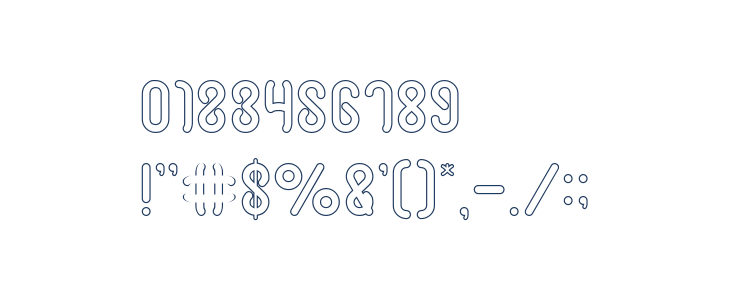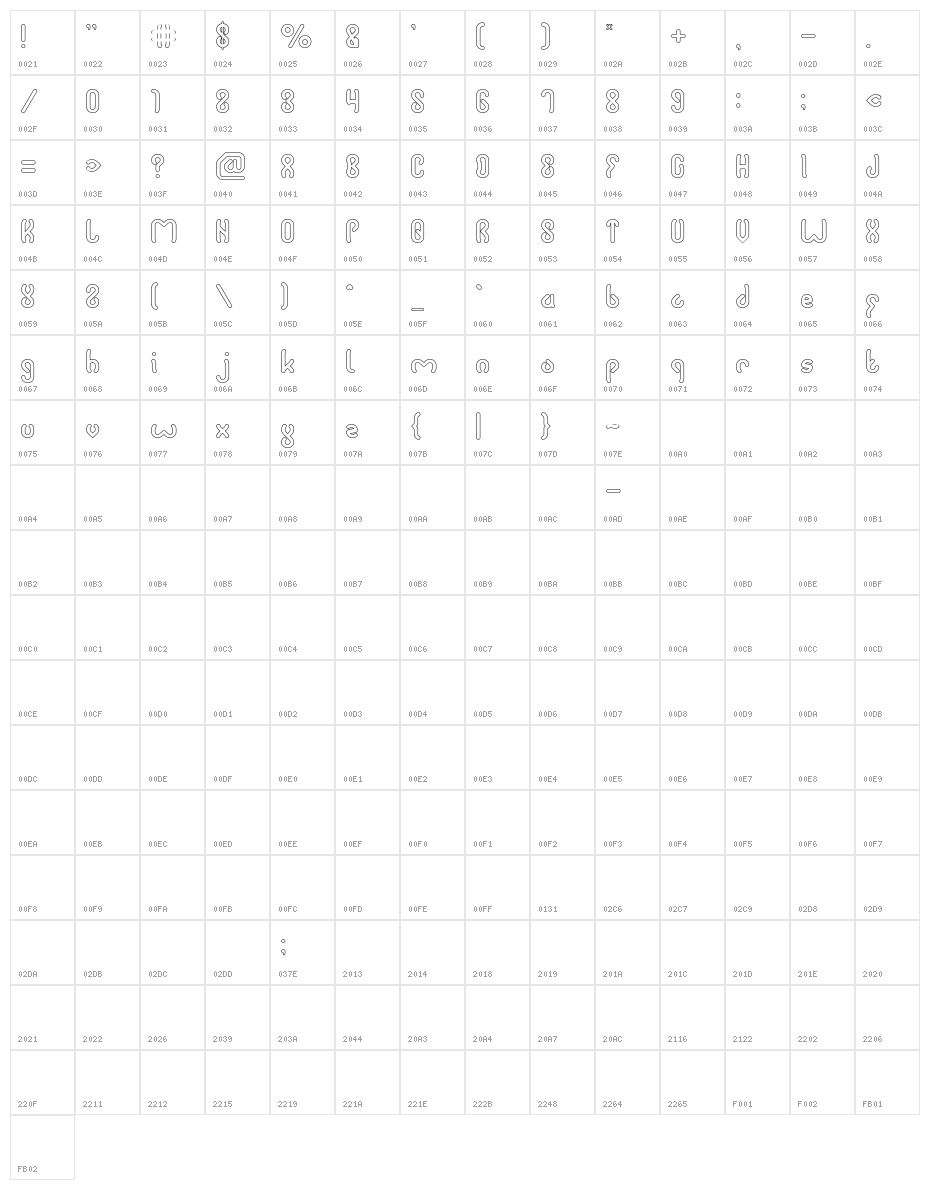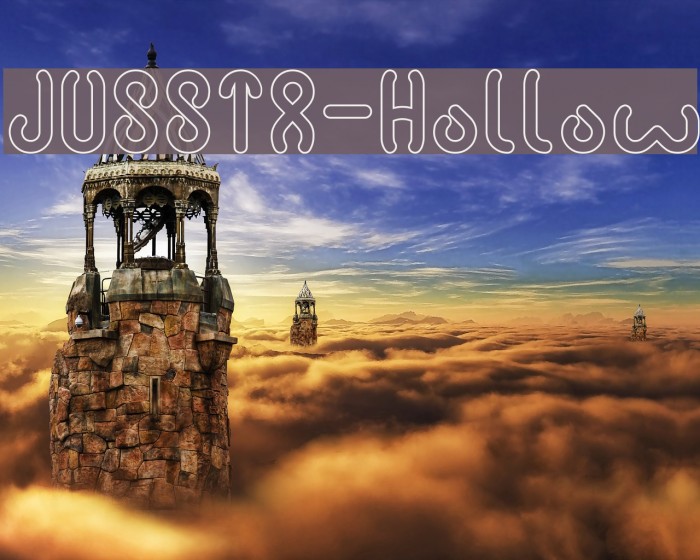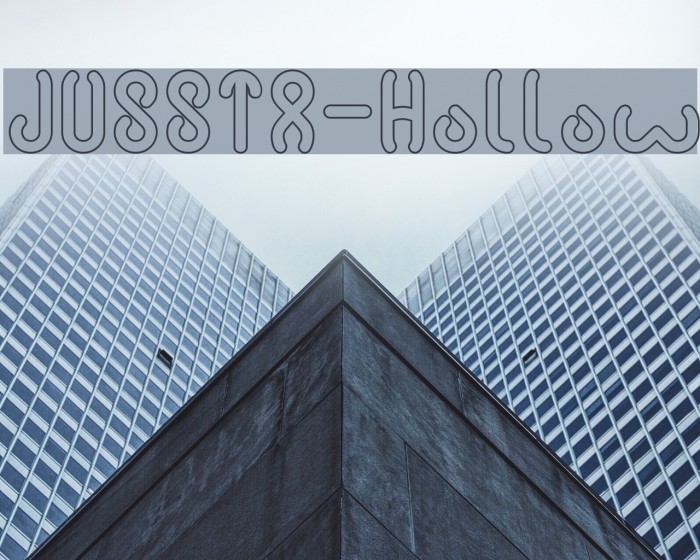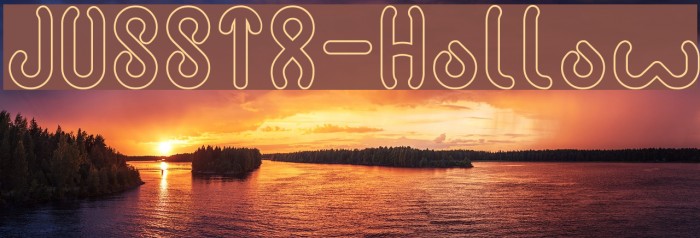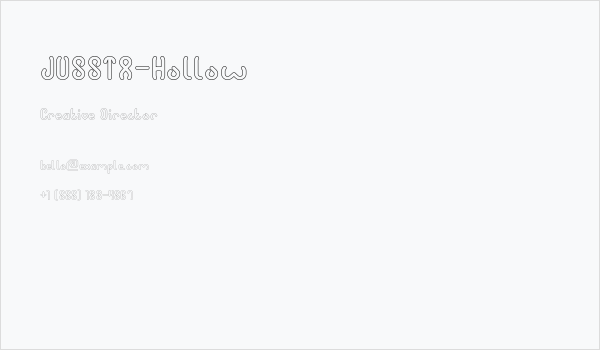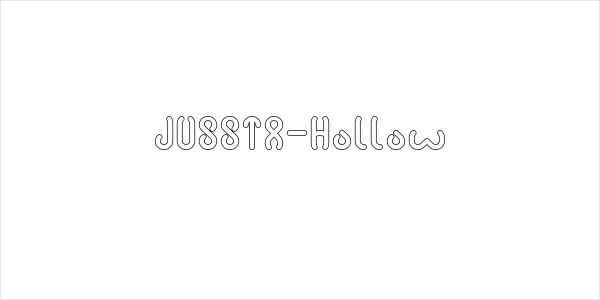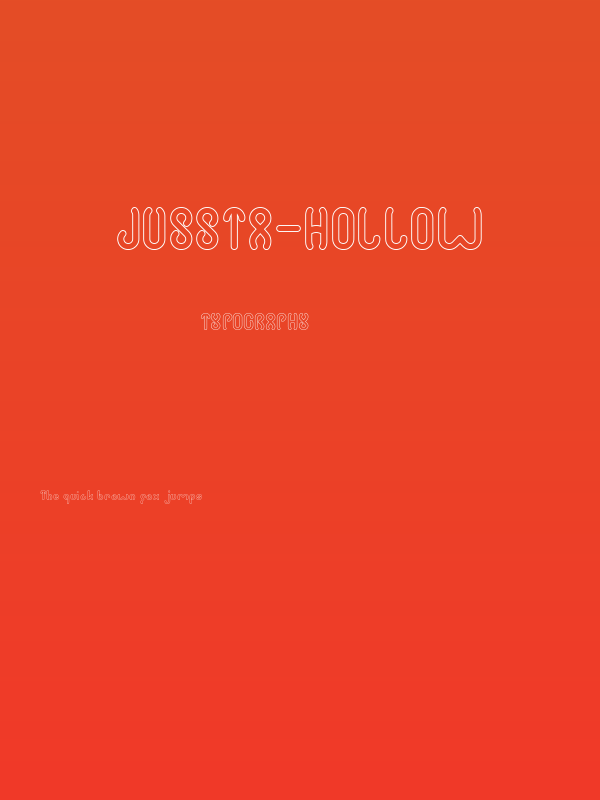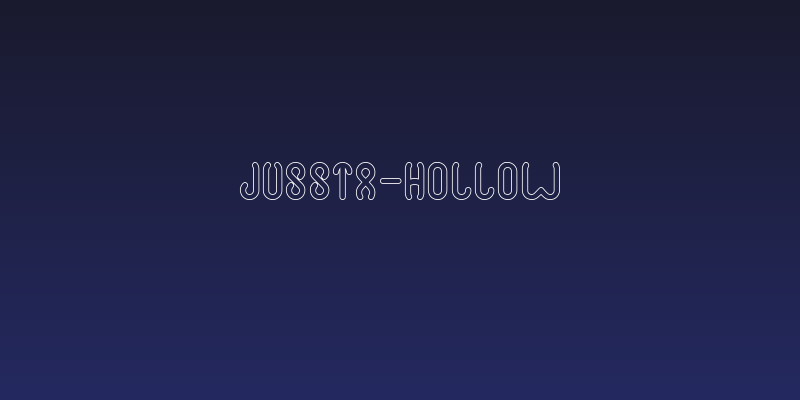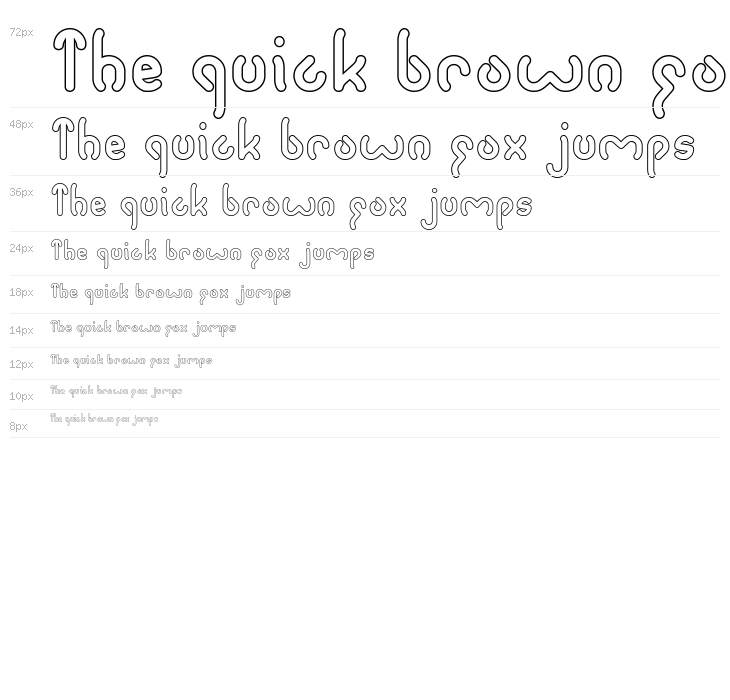
JUSSTA-Hollow Font
JUSSTA-Hollow Description
This font features a unique hollow design with a playful and modern aesthetic. Each character is outlined, creating a sense of depth and dimension. The letters have a consistent stroke width, contributing to a cohesive look. The uppercase and lowercase letters share a similar style, with rounded edges and smooth curves. Numbers and special characters maintain the same hollow effect, ensuring uniformity across all glyphs. This font's distinctive style makes it stand out, offering a creative twist on traditional typography.
| Use Case | Logos, Posters, Branding |
| Proposed Projects | Ideal for creative projects like posters, logos, and branding materials where a playful and modern look is desired. |